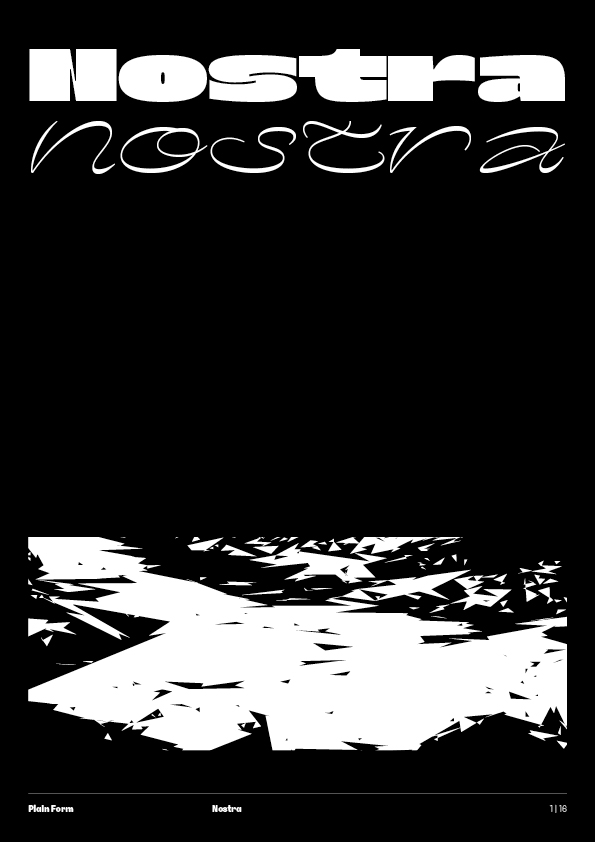
Nostra
Nostra plays with a feeling of satisfaction: how a few thin strokes can create the shape of a letter, either cut in a solid mass or traced in the air. Its monospaced width makes Nostra almost pattern-like, half-way between a legible and an abstract system, a bloc of text and an optical illusion.
Nostra presents an atypical couple only brought together by their radical proportions. The Sett is heavy and stable like a brick wall when the Stream, inspired by flourished scripts, graffiti and snakes in jars, is light and all in curves.
Nostra
Stream
Sett
In use
London Fashion Week 2019
Yves Tumor @ The Play Circle
‘Solazo’
Solazo
Pure & Naive, Kiev
Le Motel ft. Magugu – ‘Shaolin’
Le Motel ft. Magugu – Shaolin
ITI Thesis Sampler
Goodbois SS21 collections
University of Oregon, Visiting Artist Lecture Series
Nepomuk Bar
‘MMXX’ magazine
MMXX magazine
Ae→Ae
Borders (ss01)
«Oh*»→«Oh*»
Thin punctuation (ss02)
1/3→1/3
Fractions (frac)
Дю→Дю
Localized forms (locl)